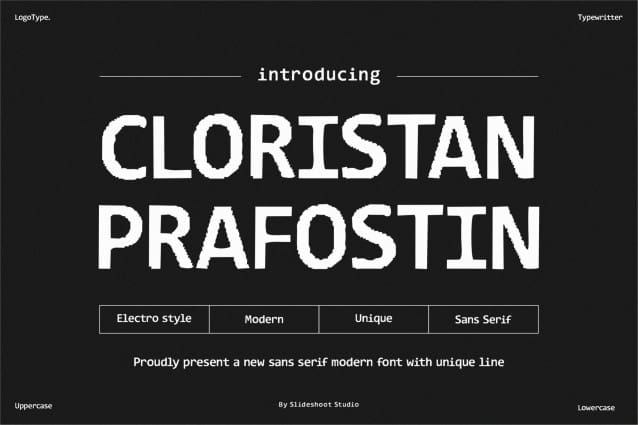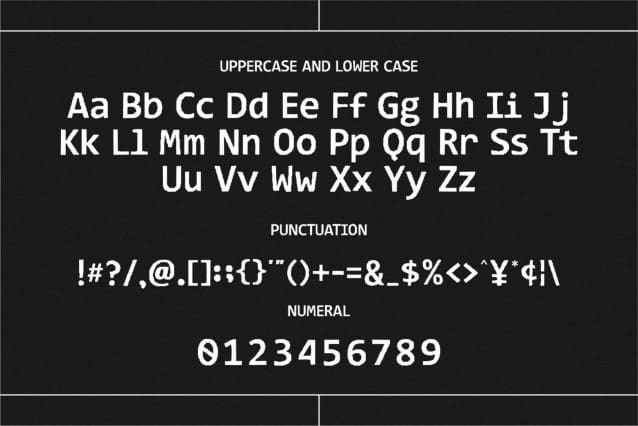
Cloristan Prafostin Font
Cloristan Prafostin Unique sans serif Font is a modern, trendy, bouncy and cute display font. It has a unique character with wood theme. It is perfect to be combined with invitation card designs, company logos, movie titles, movie names, business cards, book titles, brand names and various other designs.